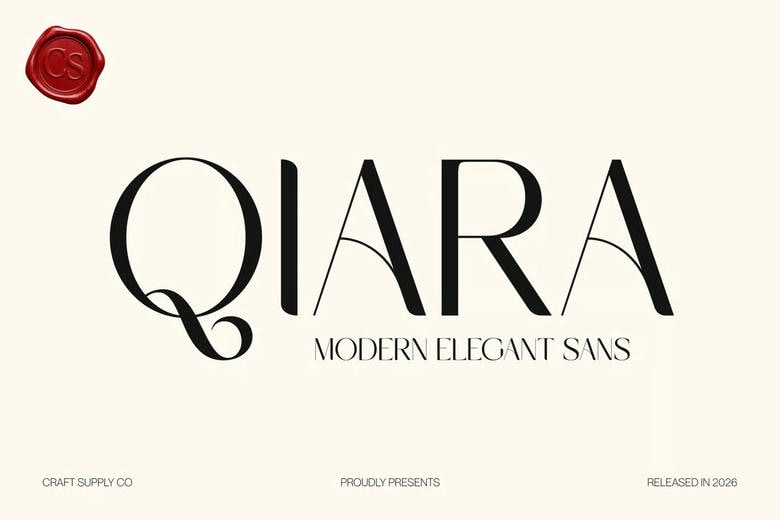
Qiara Font
Qiara is a modern sans-serif font with high-contrast elegance and a stylish, contemporary look. Its refined structure and bold contrasts give it a sense of elegance and sophistication.
This typeface features clean lines and balanced proportions, creating a polished and modern look. It is made for designers who want their typography to express beauty, confidence, and clarity.
Qiara works well for editorials, branding, and lifestyle products. Whether you are designing layouts, building a brand, or creating fashion campaigns, this font is a versatile choice.